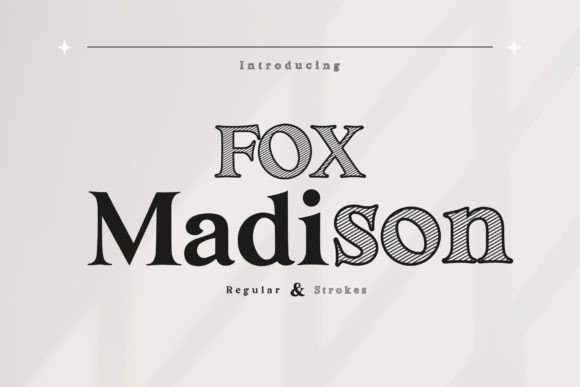
Fox Madison Font: Elevate Your Designs with Modern Elegance
When it comes to choosing the right font for your design project, the options can be overwhelming. However, if you’re looking for a versatile and stylish font that can seamlessly blend with both contemporary and vintage design aesthetics, look no further than the Fox Madison Font. This modern font comes in two beautiful styles, making it an excellent choice for a wide range of projects, from blog posts and logos to branding, advertisements, and more.
Key Features of Fox Madison Font
- 2 Modern and Beautiful Styles: Fox Madison Font offers two distinct styles that cater to different design needs, allowing you to choose the one that best fits your project’s tone and aesthetic.
- Versatility: This font is designed to be versatile, making it suitable for various projects, including blog posts, logos, branding, advertisements, invitations, greeting cards, planners, photo albums, decorations, and much more.
- Contemporary and Vintage Compatibility: Fox Madison Font effortlessly blends with both contemporary and vintage design aesthetics, giving you the flexibility to use it across different design themes.
Design Applications of Fox Madison Font
Fox Madison Font’s versatility makes it an excellent choice for a wide range of design applications. Here are some of the ways you can use this font to elevate your designs:
- Blog Posts: Use Fox Madison Font to add a touch of modern elegance to your blog posts. Its clean and crisp lines make it easy to read, ensuring that your content is easily accessible to your readers.
- Logos and Branding: Create a lasting impression with Fox Madison Font. Its unique styles can help you develop a distinctive brand identity that sets you apart from the competition.
- Advertisements: Grab attention with Fox Madison Font. Its modern and beautiful styles make it perfect for creating eye-catching advertisements that resonate with your target audience.
- Invitations and Greeting Cards: Add a touch of sophistication to your invitations and greeting cards with Fox Madison Font. Its elegant lines and curves make it perfect for special occasions.
- Planners and Photo Albums: Use Fox Madison Font to add a personal touch to your planners and photo albums. Its versatility makes it suitable for both digital and print applications.
- Decorations: Fox Madison Font can also be used for decorative purposes, such as creating stunning wall art, signage, or even social media graphics.
Typography Tips for Using Fox Madison Font
To get the most out of Fox Madison Font, here are some typography tips to keep in mind:
- Pair it with Other Fonts: Experiment with pairing Fox Madison Font with other fonts to create a unique and visually appealing typography combination.
- Adjust Font Sizes: Play with different font sizes to create visual hierarchy and emphasize important information.
- Use Color Effectively: Choose colors that complement Fox Madison Font and enhance its beauty.
- Experiment with Textures and Patterns: Add an extra layer of depth to your design by incorporating textures and patterns that complement Fox Madison Font.
Benefits of Using Fox Madison Font
So, why choose Fox Madison Font for your design projects? Here are some benefits of using this versatile font:
- Unique and Modern Design: Fox Madison Font offers a fresh and modern design that can help you stand out in a crowded design landscape.
- Time-Saving: With Fox Madison Font, you can save time and effort in finding the perfect font for your project.
- Cross-Platform Compatibility: Fox Madison Font is compatible with various design software and platforms, making it easy to use across different applications.
- Easy to Read: Fox Madison Font is designed to be easy to read, ensuring that your content is accessible to your audience.
In conclusion, Fox Madison Font is a versatile and stylish font that can elevate your designs to the next level. Its modern and beautiful styles, compatibility with contemporary and vintage design aesthetics, and wide range of design applications make it an excellent choice for designers, marketers, and businesses. Whether you’re working on a blog post, logo, advertisement, or any other design project, Fox Madison Font is sure to impress.